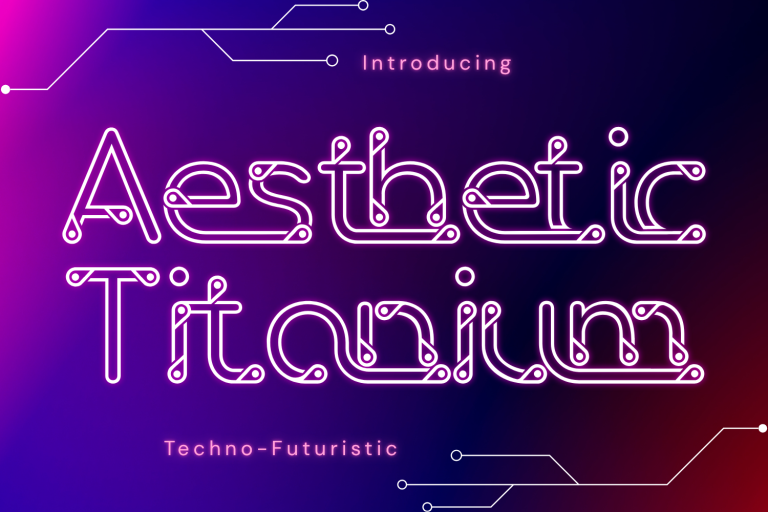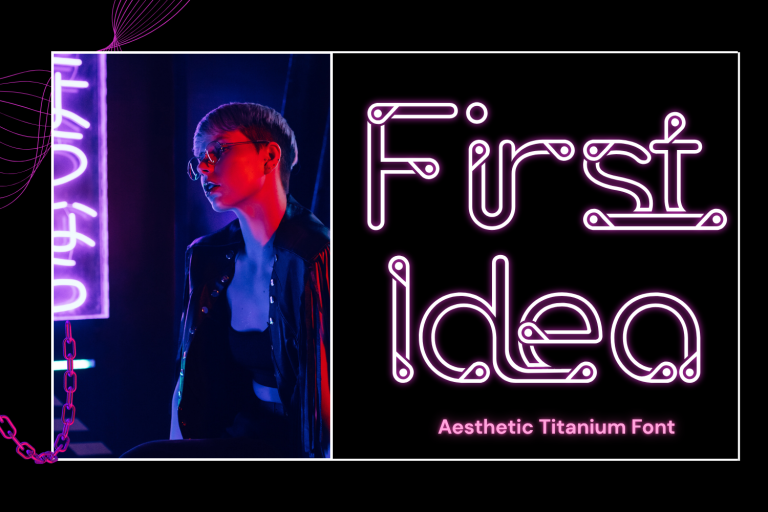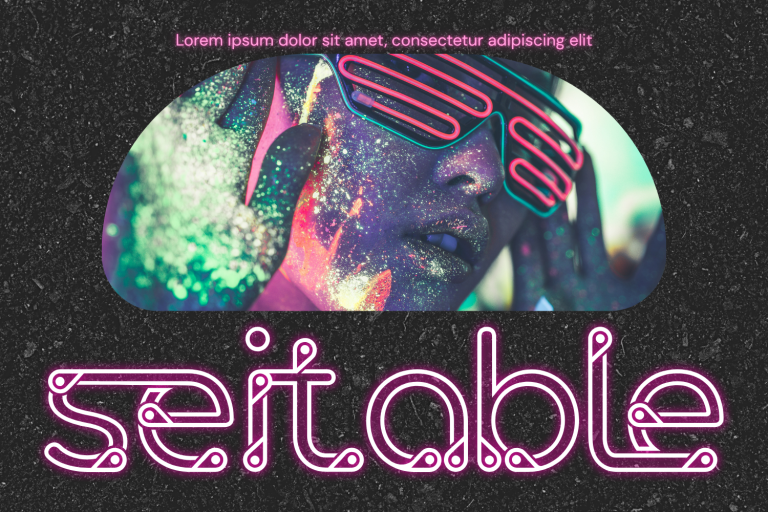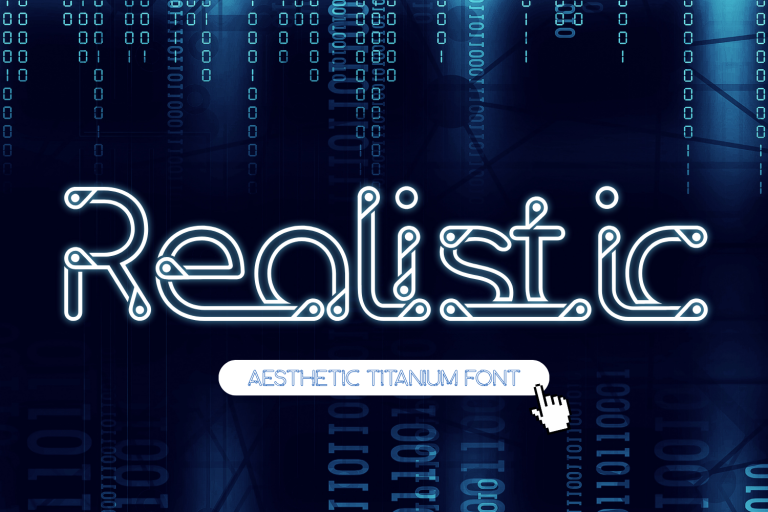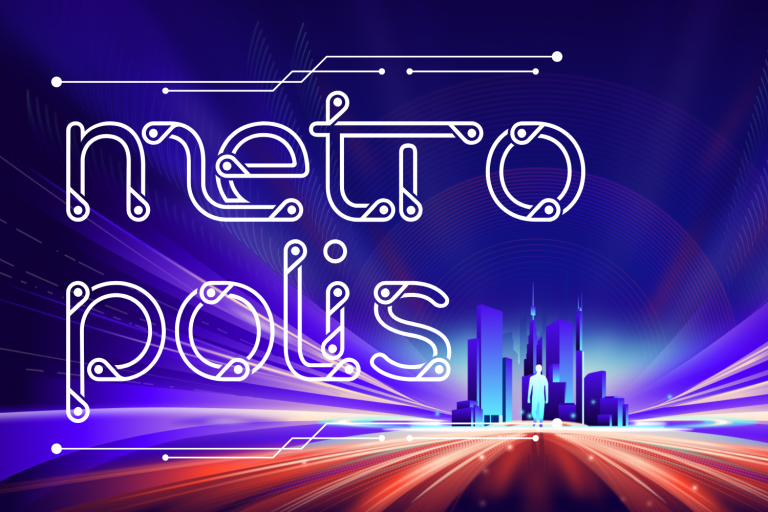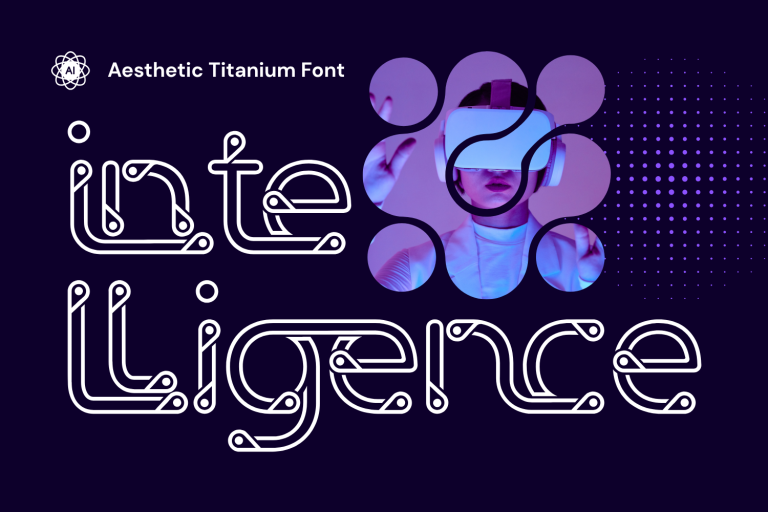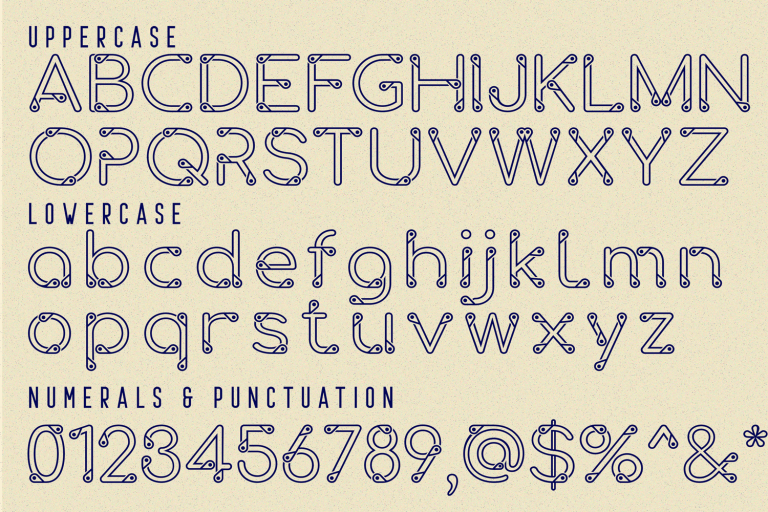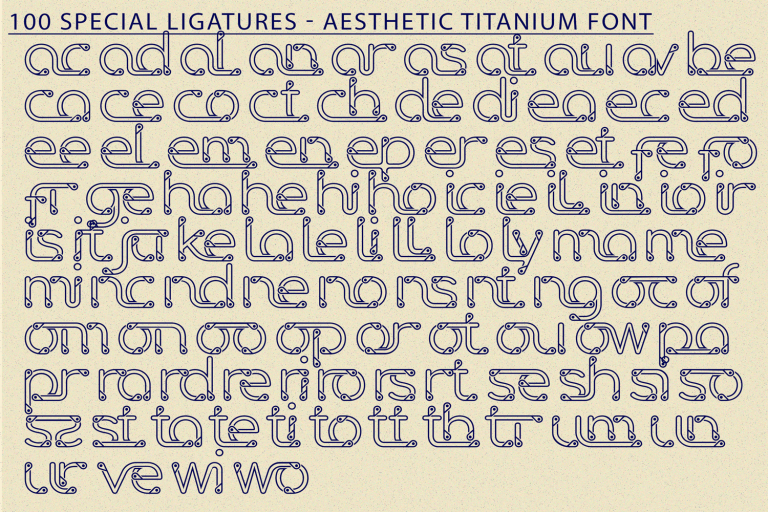
Aesthetic Titanium – Neon Tech Font – Futuristic Neon Tech Display Font, is a futuristic display font inspired by the sleek lines of neon lights and circuit board aesthetics. Designed with monoline geometry and rounded terminals, this typeface blends science-fiction energy with modern tech elegance — making it perfect for digital interfaces, branding, posters, or any design looking to feel bold, fresh, and visionary. The font’s unique construction and stylized ligatures bring a distinctive high-tech flavor that feels right at home in cyberpunk universes, gaming titles, or cutting-edge product presentations.
🔤 Font Features:
• Full Uppercase and Lowercase Set
• ~100 Futuristic Ligatures & Alternates
• Accented Characters for Multilingual Use
• Minimalist Tech Style with Rounded Nodes
🔤 About 100 ligatures combined with Stylistic Alternates Font:
ac ad al an ar as at au av be ca ce ch co ct de di ea ec ed ee el em en ep er es et fe fo fr ge ha he hi ho ie ic il in io ir is it ju ke la le li ll lo ly ma me mi nc nd ne ng no nt ns oc of om on oo op or ot ou ow pa pr ra rd re ri ro rs rt se sh si so ss st ta te th ti to tr tt um un ur ve wi wo
Aesthetic Titanium – Neon Tech Font